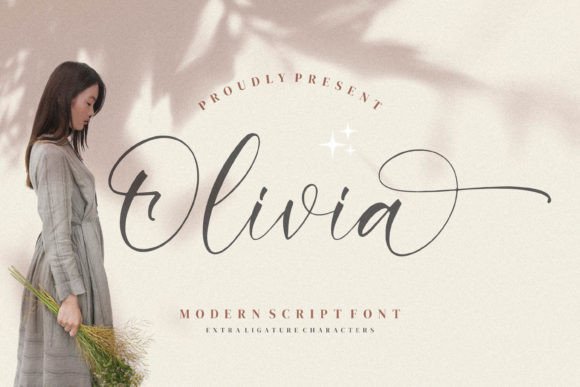
Introducing Olivia Font, the perfect script font for anyone looking to add a touch of elegance to their project. Created by integritypestudio, Olivia is not just any ordinary script font. It is the best font for the letter Q and has been specifically designed to elevate any project it is used in.
Olivia Font is the epitome of modern elegance. It is a font family that has been crafted with the utmost care to ensure that it is perfect for all your branding projects, homeware designs, product packaging, mugs, quotes, posters, shopping bags, t-shirts, book covers, name cards, invitation cards, greeting cards, labels, photography, watermark, special events, and all your other luxury projects that need a premium signature taste.
With its flowing curves and intricate design, Olivia Font will take your project to the next level. It is perfect for any occasion, whether you are looking to create a professional logo or a personal invitation card. Its versatility makes it a must-have for anyone who wants to create an eye-catching project.